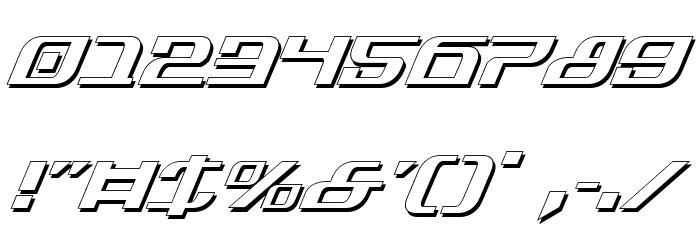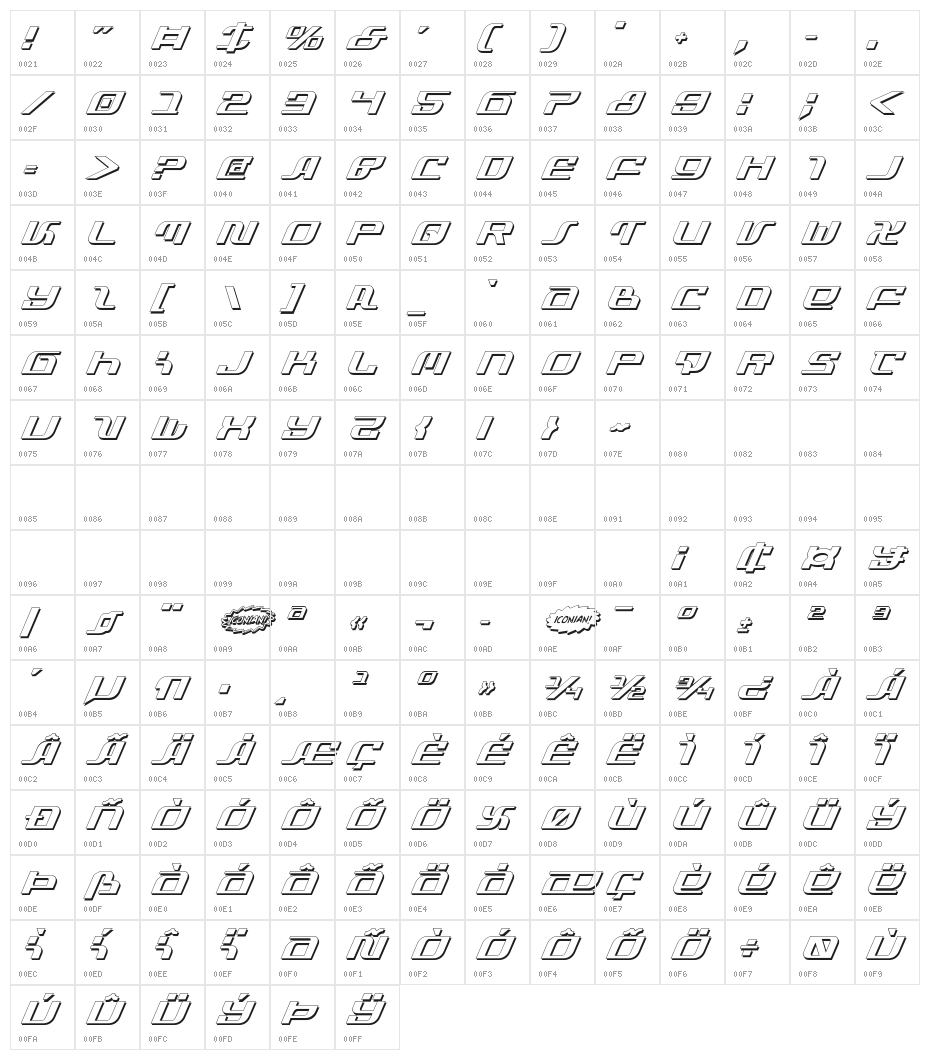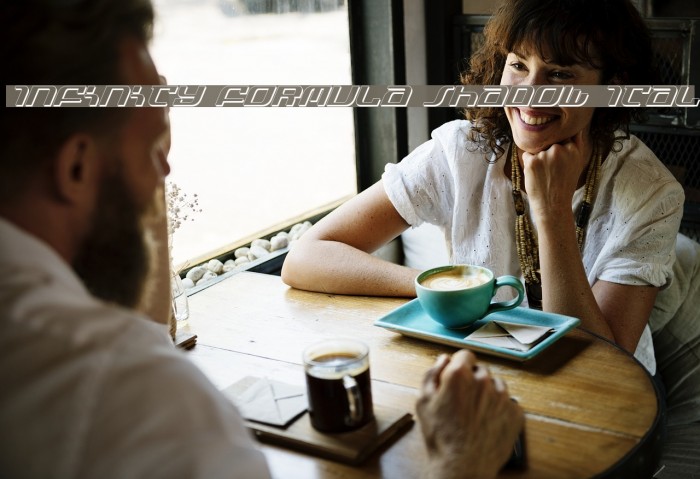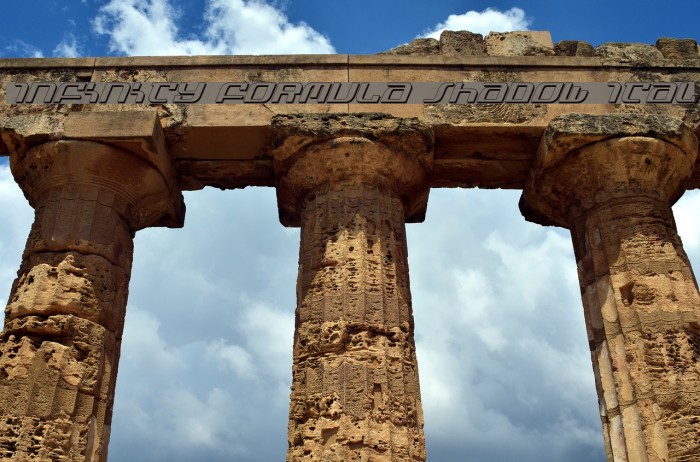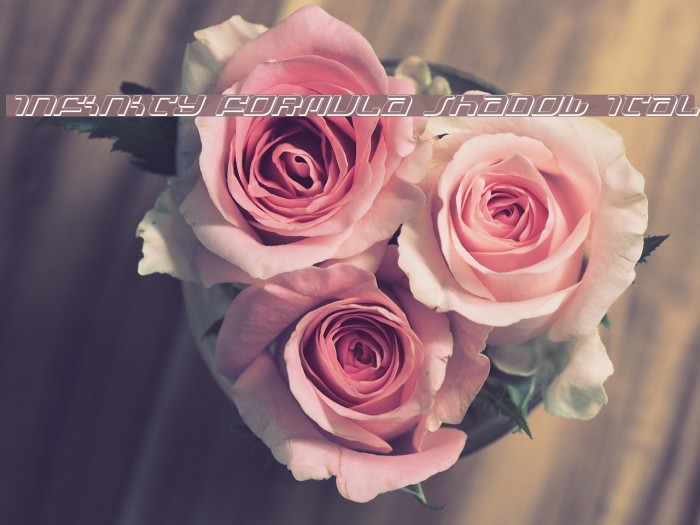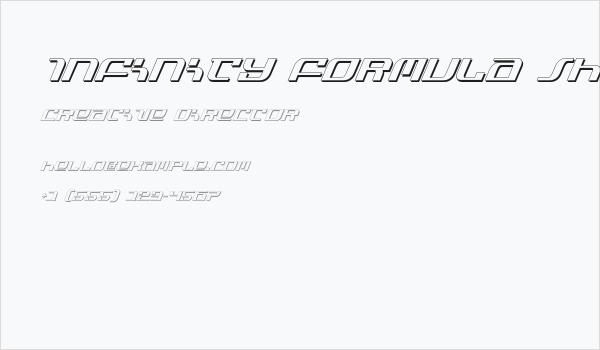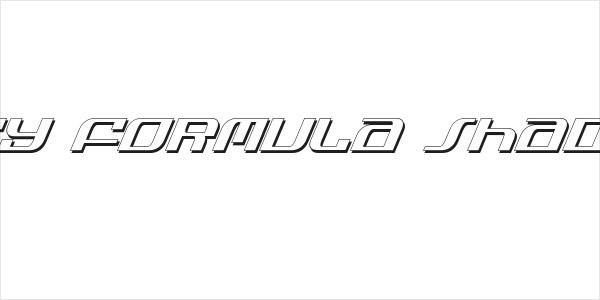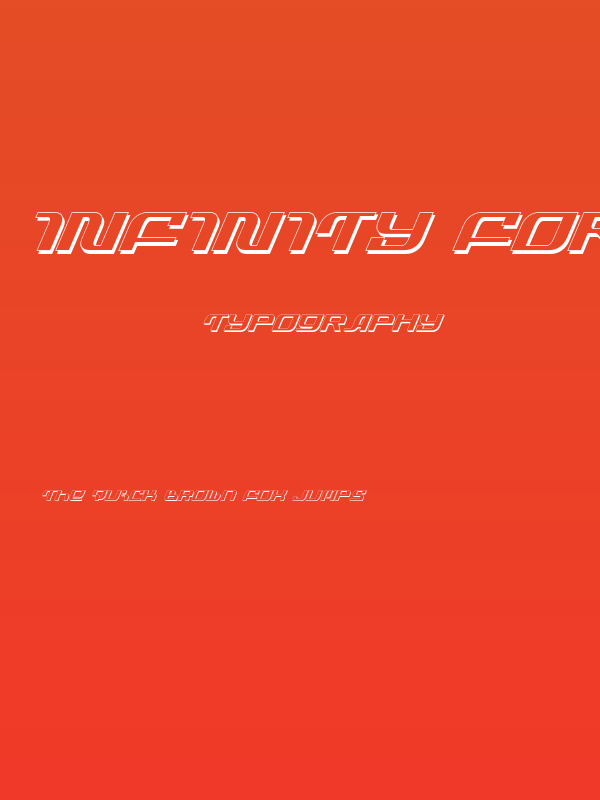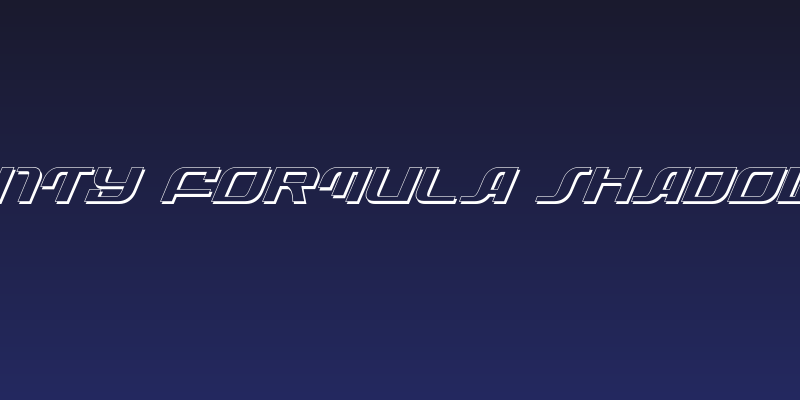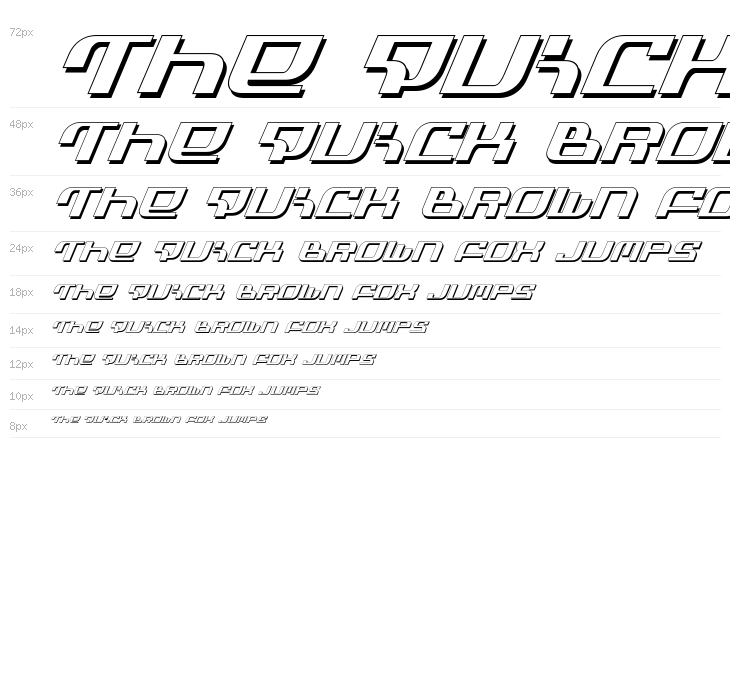
Infinity Formula Shadow Ital Font
Infinity Formula Shadow Ital Description
This font features a futuristic and dynamic design with a distinct shadow effect that gives it a three-dimensional appearance. The characters are bold and angular, with sharp edges and a slight slant that adds a sense of motion and speed. The uppercase and lowercase letters are consistent in style, maintaining the same angular and shadowed characteristics. Numbers and special characters are designed to match the overall aesthetic, ensuring a cohesive look across all glyphs. The font's unique style makes it stand out, ideal for projects that require a modern and edgy feel.